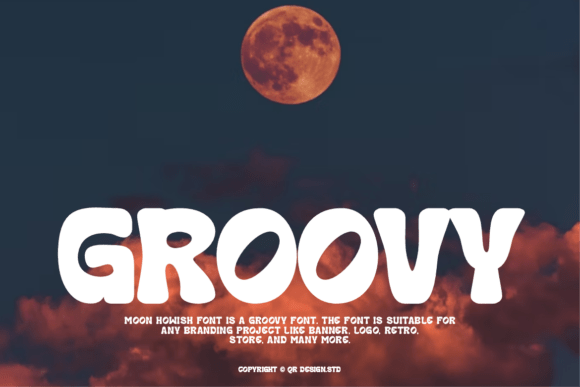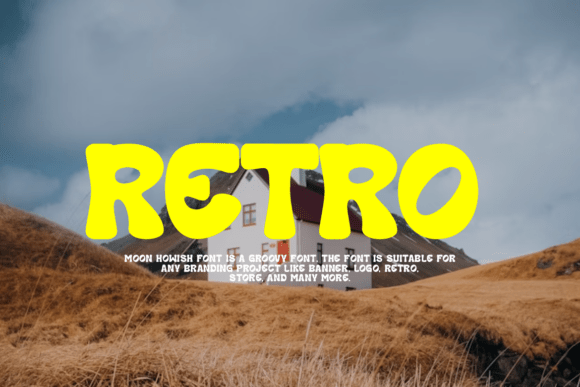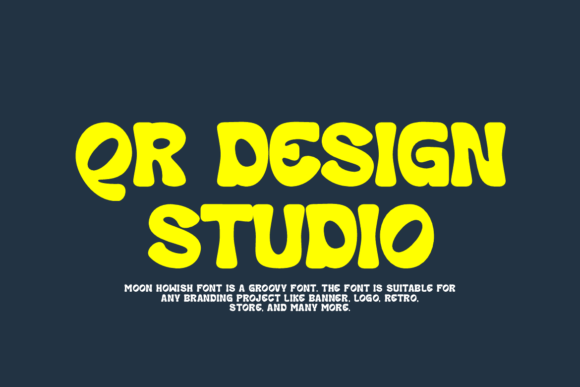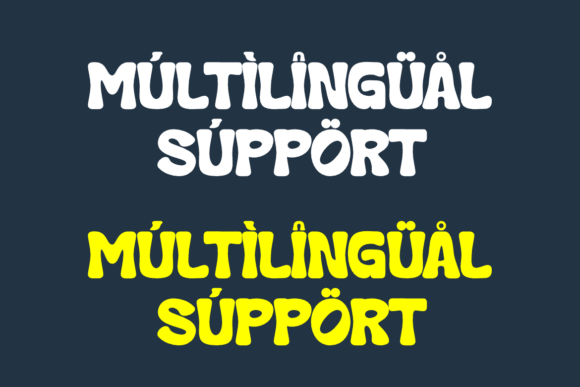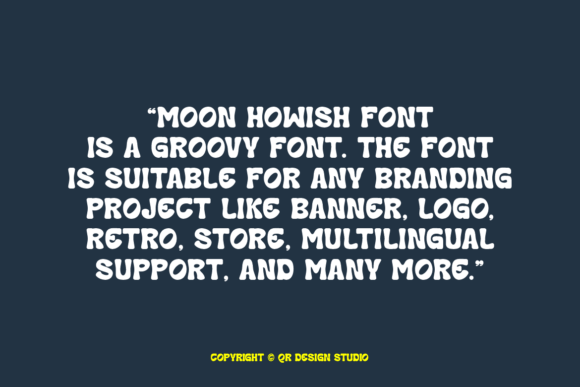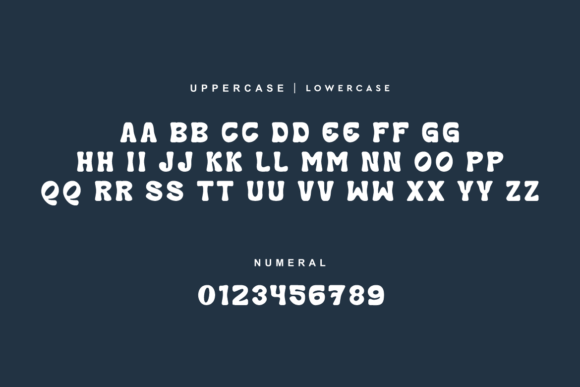
Introduction to Moon Howish Font
Moon Howish Font is a bold and authentic display font.
The font is suitable for any branding project like logo, sport, and many more .
Key Features of Moon Howish Font